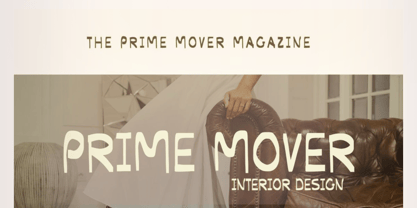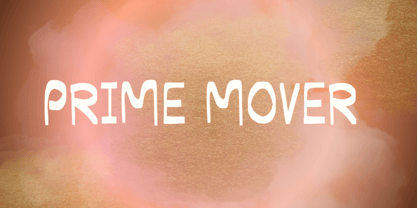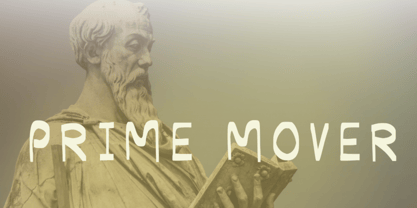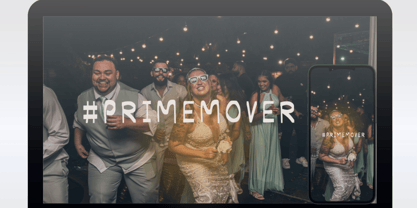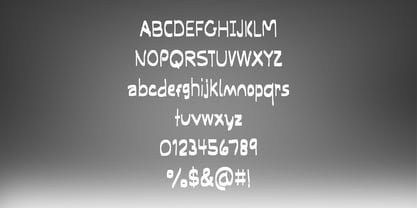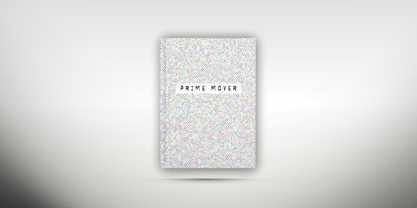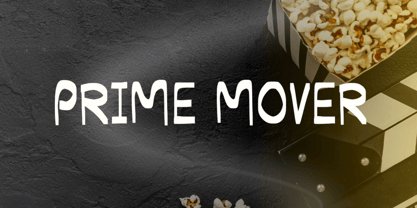
Prime Mover
by LDN Surface & Co.
The Prime Mover Font Family was designed by Lesley Nurse and published by LDN Surface & Co.. Prime Mover contains 1 styles. More about this family
Prime Mover
The Serif That Starts It All
A commanding serif font for brands, editors, and creative leaders ready to make bold statements. Designed with premium placement in mind, Prime Mover isn’t just a font — it’s a signature of momentum, legacy, and intelligent design.
Perfect for:
• Luxury branding & identity systems
• Magazine mastheads & editorial layouts
• High-end packaging & product naming
• Book titles, fashion campaigns & cinematic credits
• Thought-leadership, keynote decks & vision statements
Why Choose Prime Mover:
• Timeless silhouette with classical curves and deliberate strength
• Distinctive character set built for visual storytelling
• Versatile balance of authority and artistry
• Crafted for longevity in both digital and print formats
• Designed for brands and clients who lead, not follow
Designers: Lesley Nurse
Foundry: LDN Surface & Co.